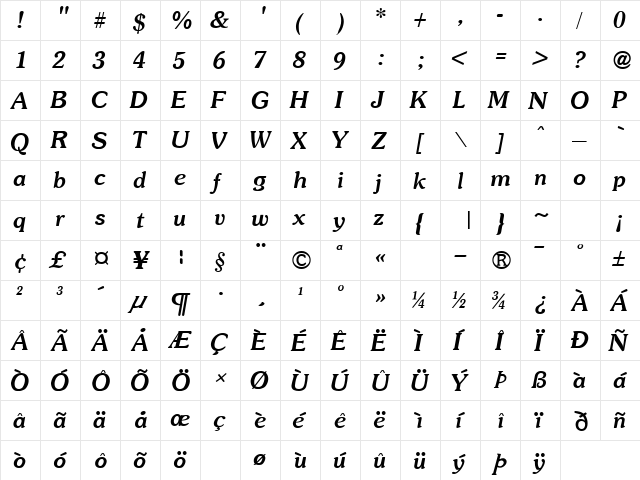
GE Sultan Bold Italic
Design Context for GE Sultan Typeface
GE Sultan is a composed and adaptable typeface that performs quietly and consistently across a wide range of design contexts. The slanted form adds forward momentum and visual energy. Its bold stroke weight gives it real presence on the page.
Pro Tip: Try GE Sultan for annotation and caption copy alongside an upright companion — the contrast in angle creates a dynamic but ordered typographic system.